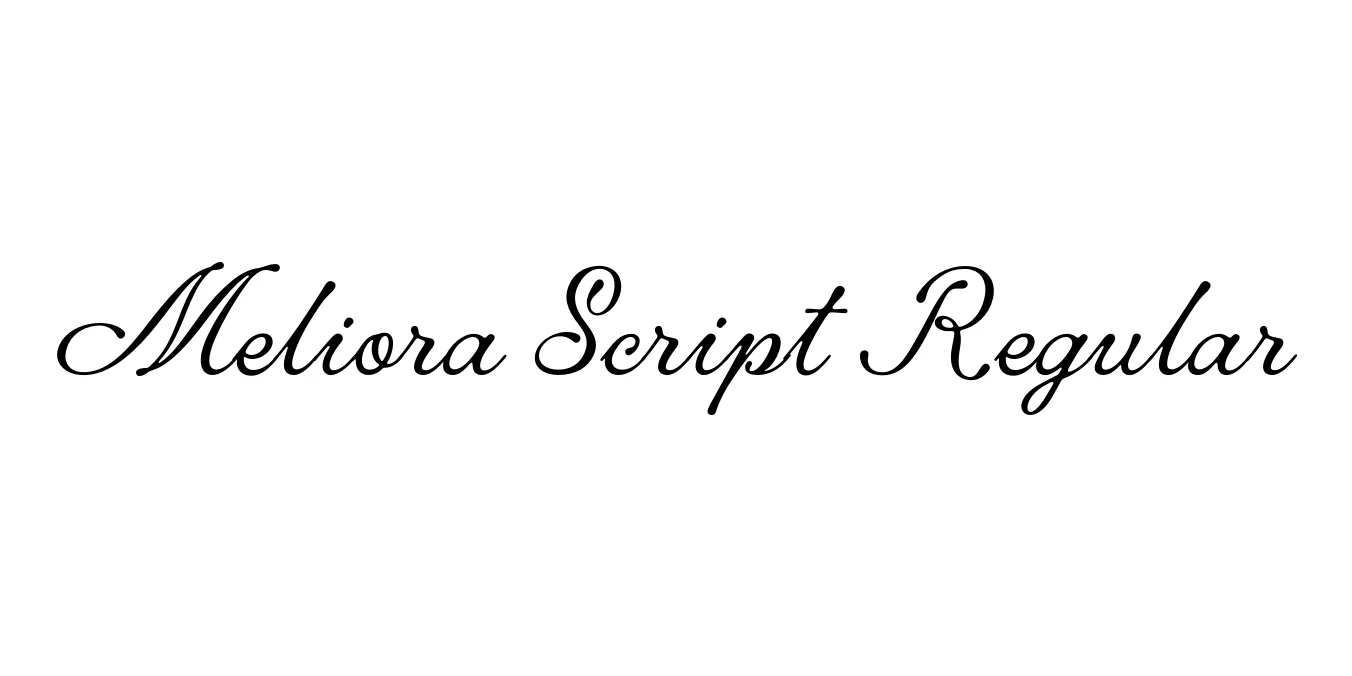
Meliora Script Regular
Designed by Letterhend Studio
Meliora Script Regular is an elegant and sophisticated calligraphy font designed by Letterhend Studio. It features flowing, fluid strokes and high-contrast lines that mimic traditional ink pen movements. The typeface is characterized by its graceful flourishes and decorative swashes, making it a favorite for formal invitations, luxury branding projects, and artistic typography.
This font was developed to provide a modern take on classical copperplate script, balancing legibility with artistic flair. Its extensive OpenType features include ligatures and alternate characters, allowing designers to create unique, hand-lettered looks for wedding stationery and high-end editorial layouts. Over time, it has established itself as a go-to choice for designers seeking a balance between vintage charm and modern cleanliness.
Meliora Script Regular Best Uses
Perfect for creating high-end, formal invitation suites and RSVP cards.
Ideal for luxury brands, beauty salons, and boutique fashion shops.
Adds a touch of sophistication to magazine headers, titles, and pull quotes.
Great for elegant quote graphics and stylish aesthetic announcements.